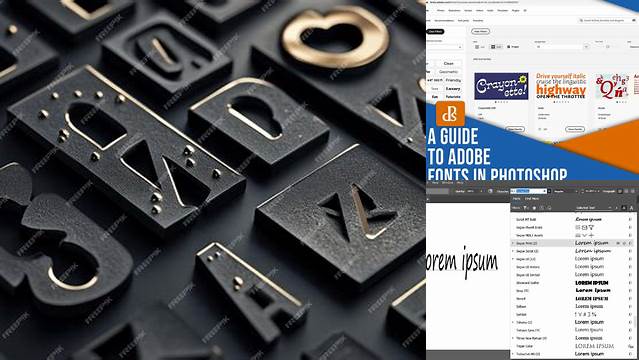
Download Fonts For Photoshop: A Comprehensive Guide
1. Understanding Font Types for Photoshop
Before we jump into the downloading part, it's crucial to understand the different font types that Photoshop supports. This knowledge will save you a lot of headaches down the road. The most common font formats you'll encounter are TrueType (.ttf), OpenType (.otf), and PostScript Type 1 (.pfb or .pfa). TrueType fonts are a classic and widely compatible format, making them a safe bet for most projects. OpenType fonts are a more modern format, offering enhanced features like expanded character sets, ligatures, and alternate glyphs. These extra goodies can really elevate your design work. PostScript Type 1 fonts are an older format, but still used in some professional settings. While Photoshop can handle most of these, OpenType fonts are generally preferred for their versatility and superior quality. Knowing this, you can confidently download fonts for Photoshop that will work perfectly with your projects and give you the creative flexibility you need.
7. Choosing the Right Fonts for Your Design Projects
Now that you know how to download fonts for Photoshop and install them, the next crucial step is choosing the right fonts for your design projects. The font you select can significantly impact the overall look and feel of your design, so it's important to choose wisely. Consider the tone and message of your project. A playful, handwritten font might be perfect for a children's book, but it wouldn't be appropriate for a professional business report. Similarly, a classic serif font can convey elegance and tradition, while a modern sans-serif font might be better suited for a contemporary design. Think about readability. While a fancy, decorative font might look beautiful, it's useless if your audience can't read it. Choose fonts that are clear and legible, especially for body text. Pay attention to font pairing. Combining fonts effectively can add visual interest to your design, but it's important to choose fonts that complement each other. A general rule of thumb is to pair a serif font with a sans-serif font. Finally, don't be afraid to experiment. Try out different fonts and see what works best for your project. With a little practice, you'll develop an eye for choosing the perfect fonts for any design.
8. Organizing Your Font Library for Efficient Workflow
As you download fonts for Photoshop and your font library grows, it's essential to organize them efficiently. A well-organized font library saves you time and frustration when you're working on design projects. One effective method is to create folders for different font styles, such as serif, sans-serif, script, and display fonts. This makes it easy to quickly find the type of font you're looking for. You can also create folders for specific projects or clients. This helps you keep track of the fonts you've used in past projects and ensures consistency across your designs. Another helpful tip is to use a font management tool. There are several software programs available that can help you organize, activate, and preview your fonts. These tools often offer features like font tagging, font filtering, and font conflict detection. Some popular font management tools include FontBase, NexusFont, and RightFont. Regularly cleaning up your font library is also a good idea. Delete any fonts you no longer use to avoid clutter and improve performance. By taking the time to organize your font library, you'll streamline your workflow and make it easier to find the perfect font for your next project.
9. Creating Custom Fonts for Unique Designs
If you're feeling adventurous, why not try creating your own custom fonts? Designing your own fonts allows you to create truly unique and personalized typography for your projects. It might sound intimidating, but there are several user-friendly software programs that make the process accessible to beginners. These tools allow you to draw each letterform, adjust spacing and kerning, and generate font files that you can use in Photoshop and other applications. Some popular font design software options include FontForge (a free, open-source option), Glyphs (a professional-grade tool), and FontLab Studio (another industry-standard software). Creating a font from scratch takes time and effort, but the results can be incredibly rewarding. You'll have a font that is completely your own, reflecting your personal style and design sensibilities. Plus, you'll gain a deeper understanding of typography and font design principles. While you might initially download fonts for Photoshop, learning to create your own opens up a whole new world of creative possibilities.
10. Understanding Font Licensing and Usage Rights
When you download fonts for Photoshop, it's crucial to understand the font licensing and usage rights. Fonts are intellectual property, and their usage is governed by licenses that specify how you can use them. Most free fonts come with a license that allows for personal use, but commercial use might be restricted. Commercial use typically refers to using the font in designs that you sell or use for business purposes, such as logos, branding materials, or merchandise. Always check the license terms before using a font in a commercial project to ensure you're complying with the creator's guidelines. Some fonts are released under open-source licenses, which allow for free use, modification, and distribution. Others have more restrictive licenses that might require you to purchase a license for commercial use. Font foundries often offer different types of licenses, such as desktop licenses (for use on your computer), web licenses (for use on websites), and app licenses (for use in mobile apps). If you're unsure about the license terms, it's always best to contact the font designer or foundry for clarification. Understanding font licensing protects you from legal issues and ensures you're respecting the rights of the font creators.
11. Exploring Serif Fonts for Professional Designs
Serif fonts are characterized by the small strokes or